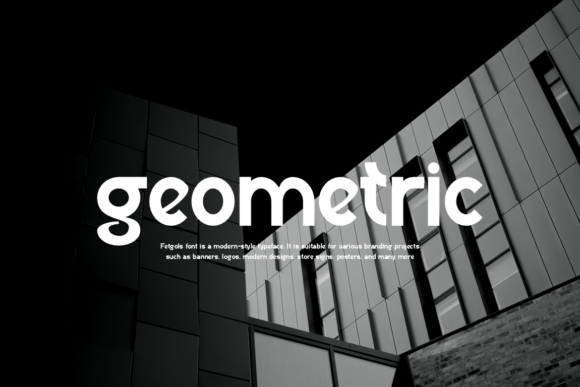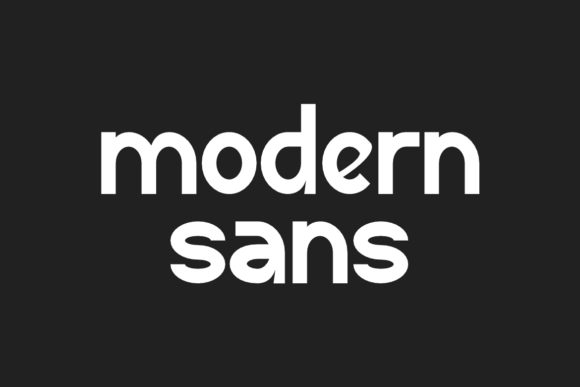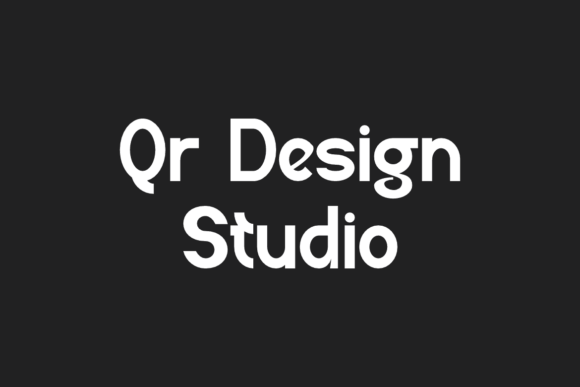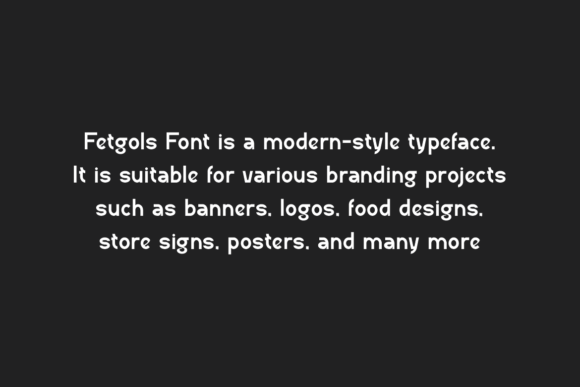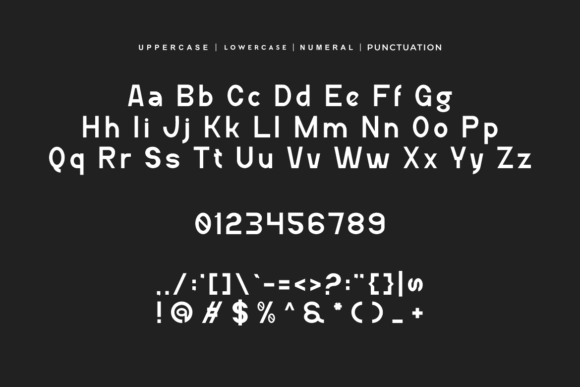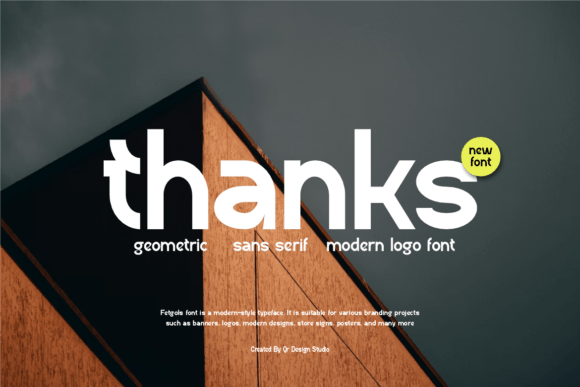
The Designer’s Delight: Exploring Fetgols Font
I’ll never forget the time I was working on a sports branding project, and my client asked for a logo that screamed energy, boldness, and authenticity. I scoured the internet for the perfect font, and just when I thought I’d never find it, I stumbled upon Fetgols Font. It was love at first sight! 💥
Fetgols Font is a bold and authentic display typeface that’s perfect for various branding projects, such as logos, sports designs, and more. This font stands out beautifully in a wide range of contexts, making it a versatile addition to any designer’s toolkit.
- ✨ Bold and authentic: Fetgols Font has a unique personality that screams confidence and energy.
- ✅ Highly versatile: This font works beautifully in a wide range of contexts, from logos to sports designs.
- 💯 Easy to read: Despite its boldness, Fetgols Font remains surprisingly legible, even at smaller sizes.
While Fetgols Font is an excellent choice for many projects, there are a few things to keep in mind:
- 🤔 Limited use cases for body text: Due to its boldness, Fetgols Font might not be the best choice for body text or lengthy paragraphs.
- ⚠️ May not work well with certain design styles: Fetgols Font has a strong personality, which might clash with more minimalist or elegant design styles.
The Story Behind Fetgols Font
Fetgols Font was created with the goal of crafting a bold and authentic display typeface that would stand out in a crowded design landscape. The designer, inspired by the world of sports and outdoor activities, aimed to create a font that would evoke energy, confidence, and a sense of adventure.
Q: Is Fetgols Font suitable for body text?
A: While Fetgols Font is an excellent choice for headlines and titles, it might not be the best choice for body text due to its boldness.